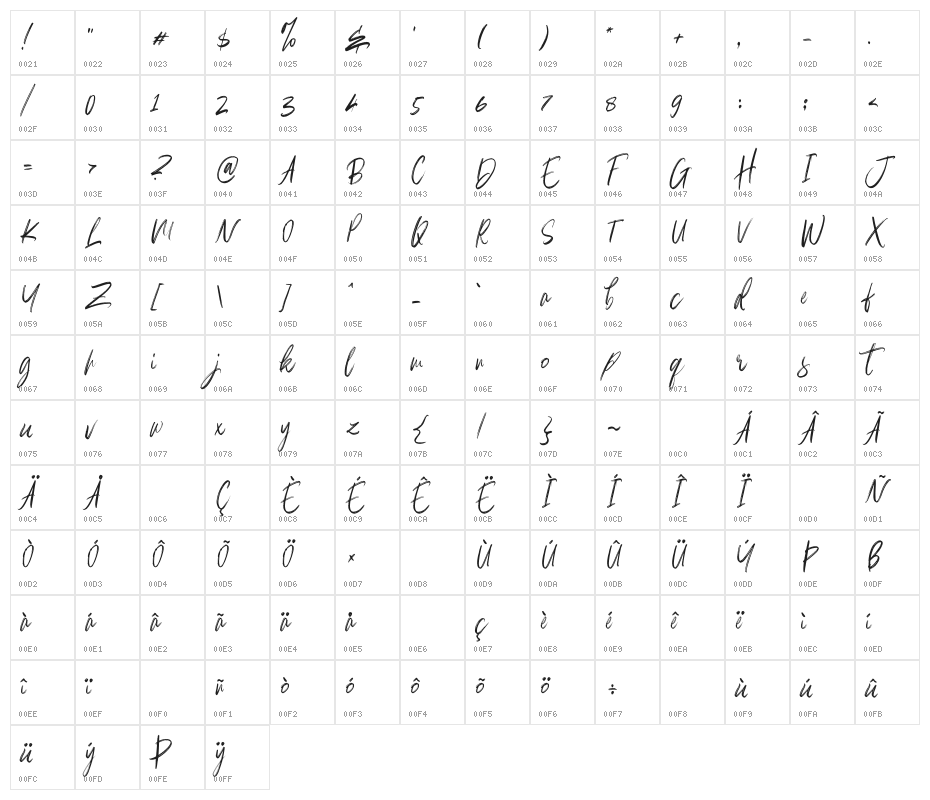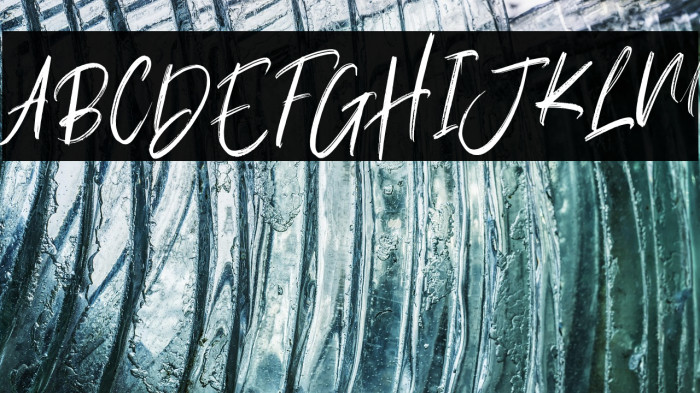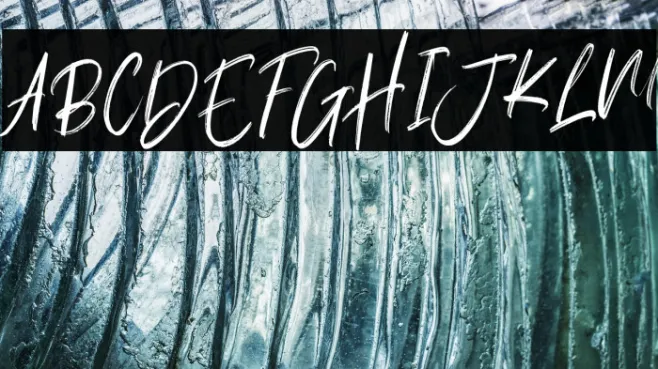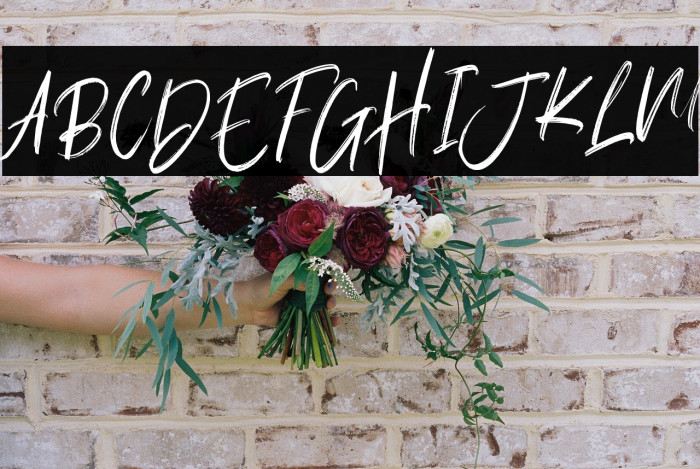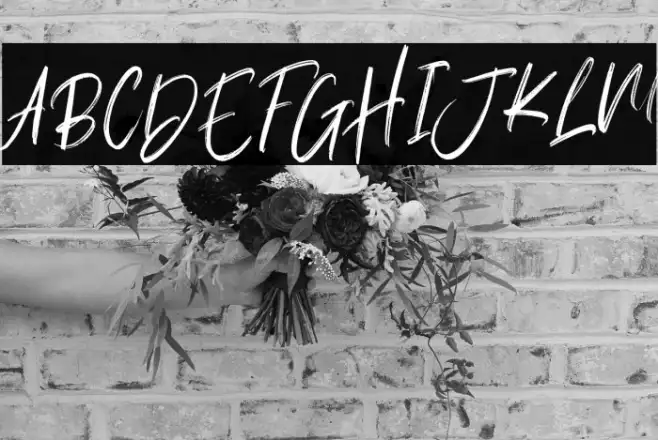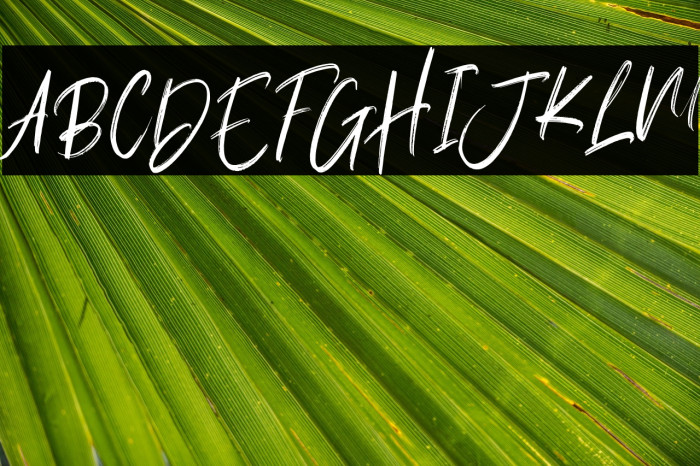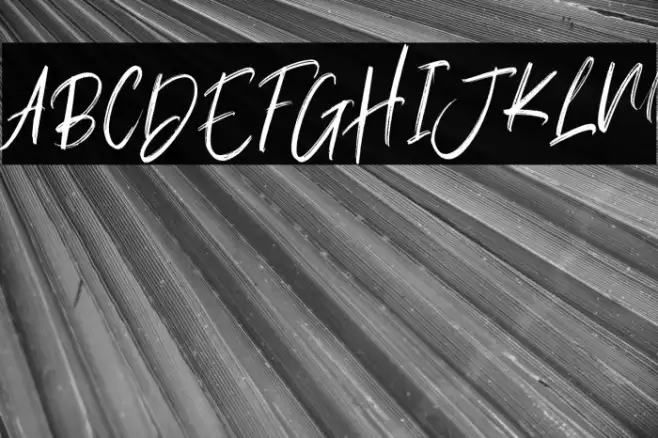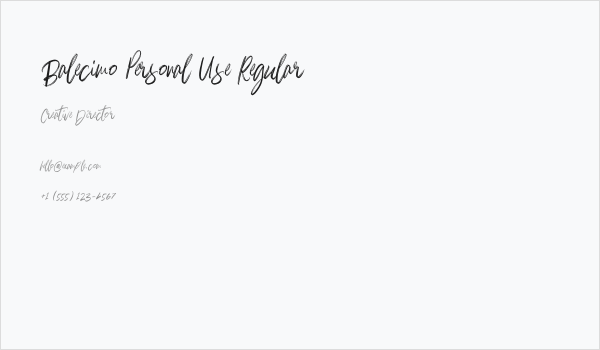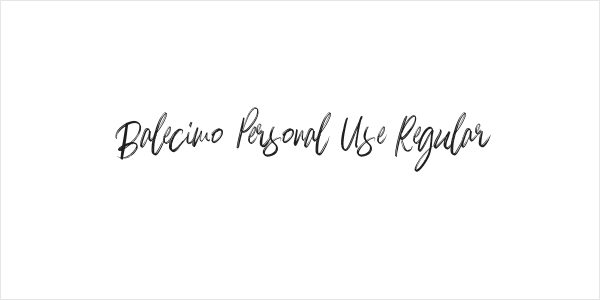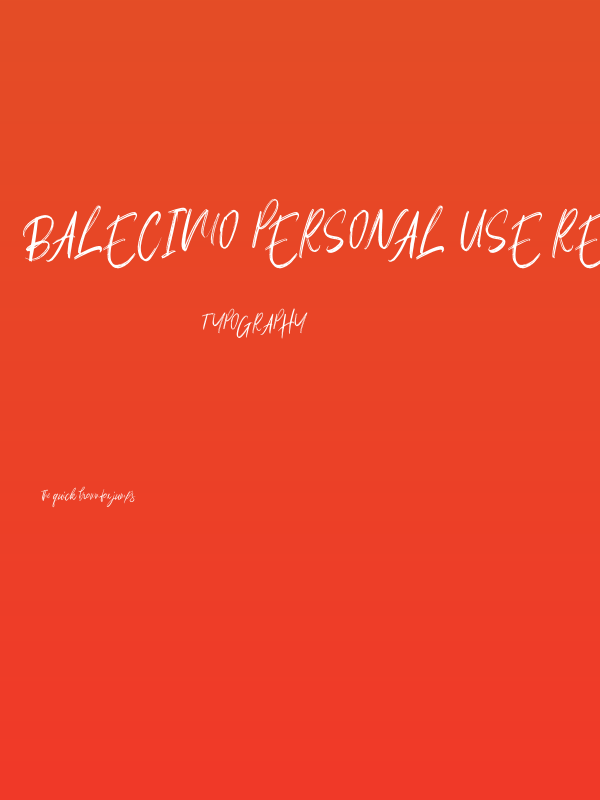
Balecimo Personal Use Regular Font
Balecimo Personal Use Regular Description
This font exudes a dynamic and energetic style, characterized by its handwritten appearance. The letters are fluid and slightly slanted, giving a sense of motion and expressiveness. The strokes vary in thickness, adding a lively and artistic flair. Uppercase letters are bold and prominent, while lowercase letters maintain a consistent flow, enhancing readability. The numerals and special characters are crafted with the same artistic touch, ensuring a cohesive look throughout. This font is perfect for projects that require a personal and creative touch, such as invitations, greeting cards, and artistic branding.
| Proposed Projects | Ideal for invitations, greeting cards, artistic branding, and creative projects. |